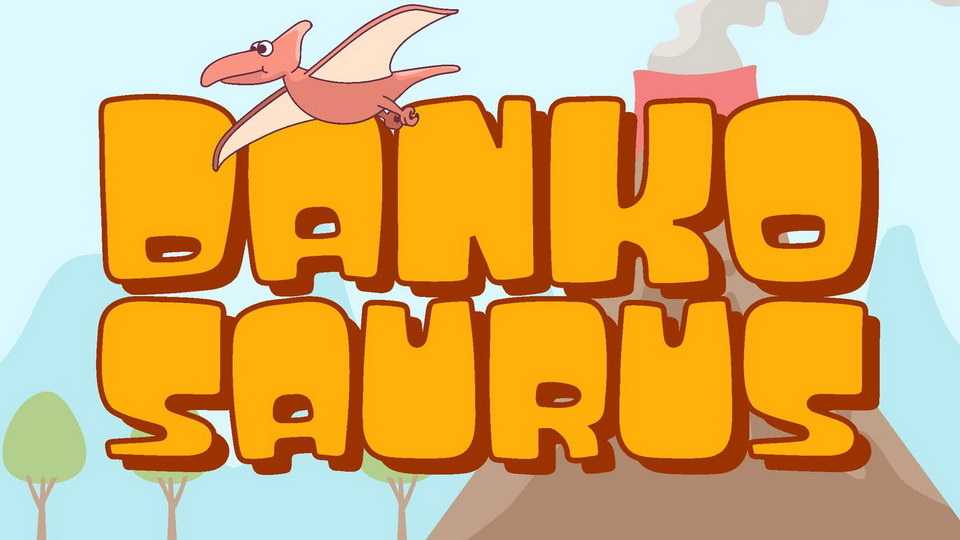
Download Dankosaurus font, Jurassic children typeface. When you think about a dinosaur era, you will be familiar with Dankosaurus, a unique, quirky, and happy font that goes along with the giant animal time.